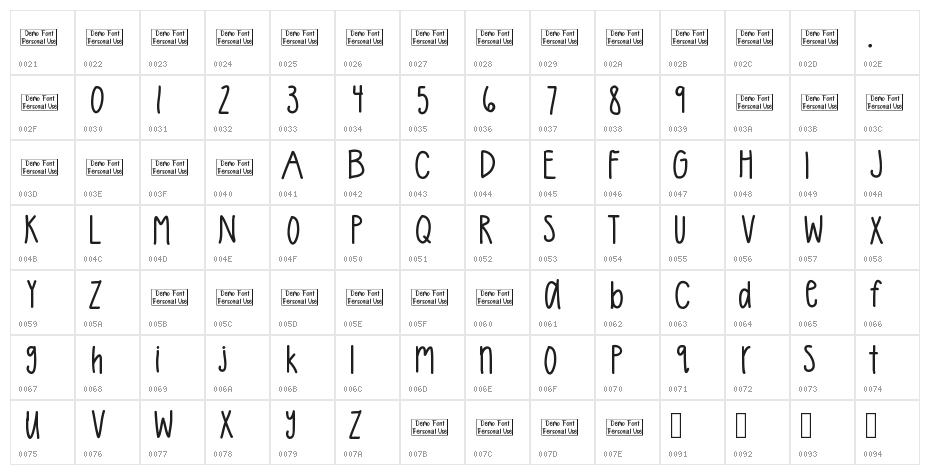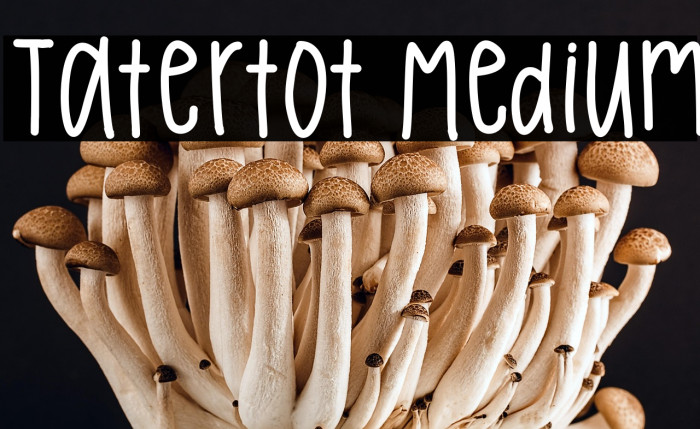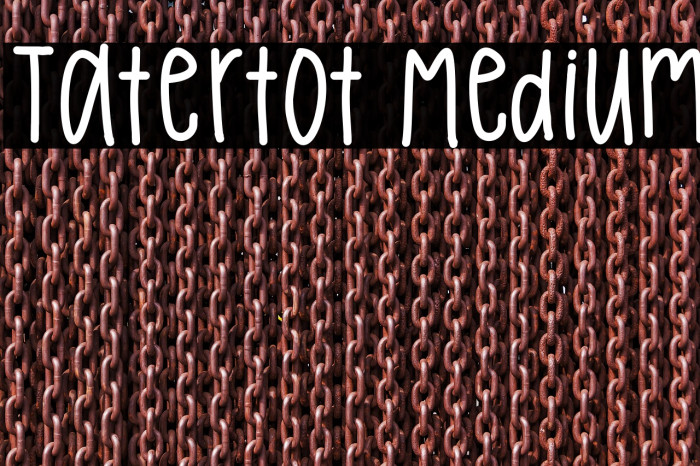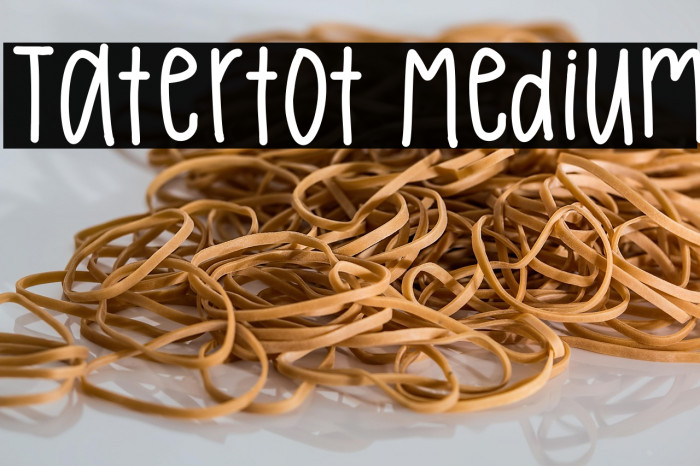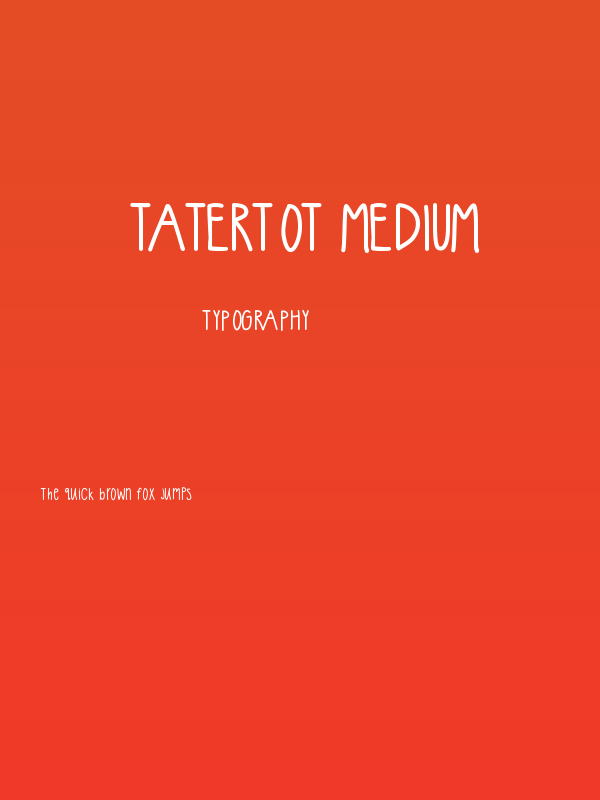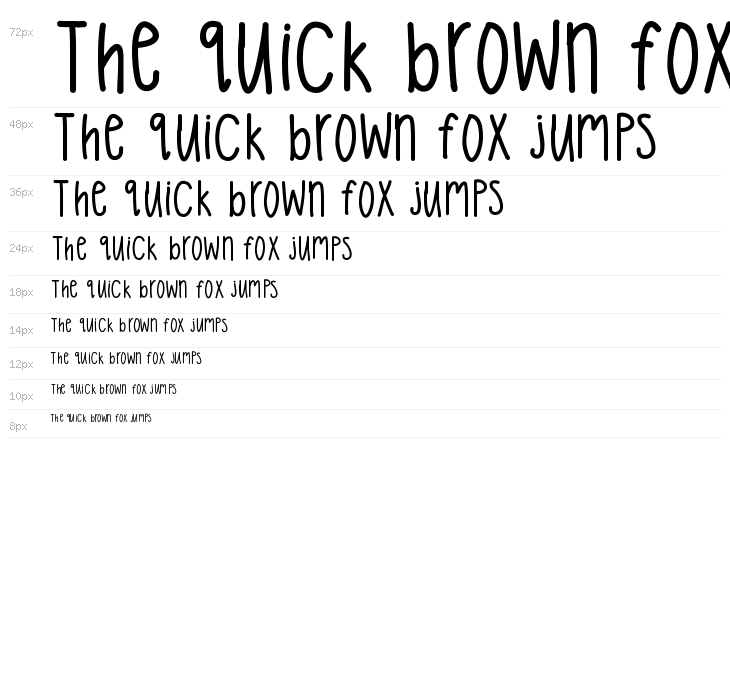
Tatertot Medium Font
Tatertot Medium Description
A playful, handwritten font with a casual and friendly appearance. The letters are tall and narrow with a consistent stroke width.
| Proposed Projects | Children's books, greeting cards, informal invitations. |